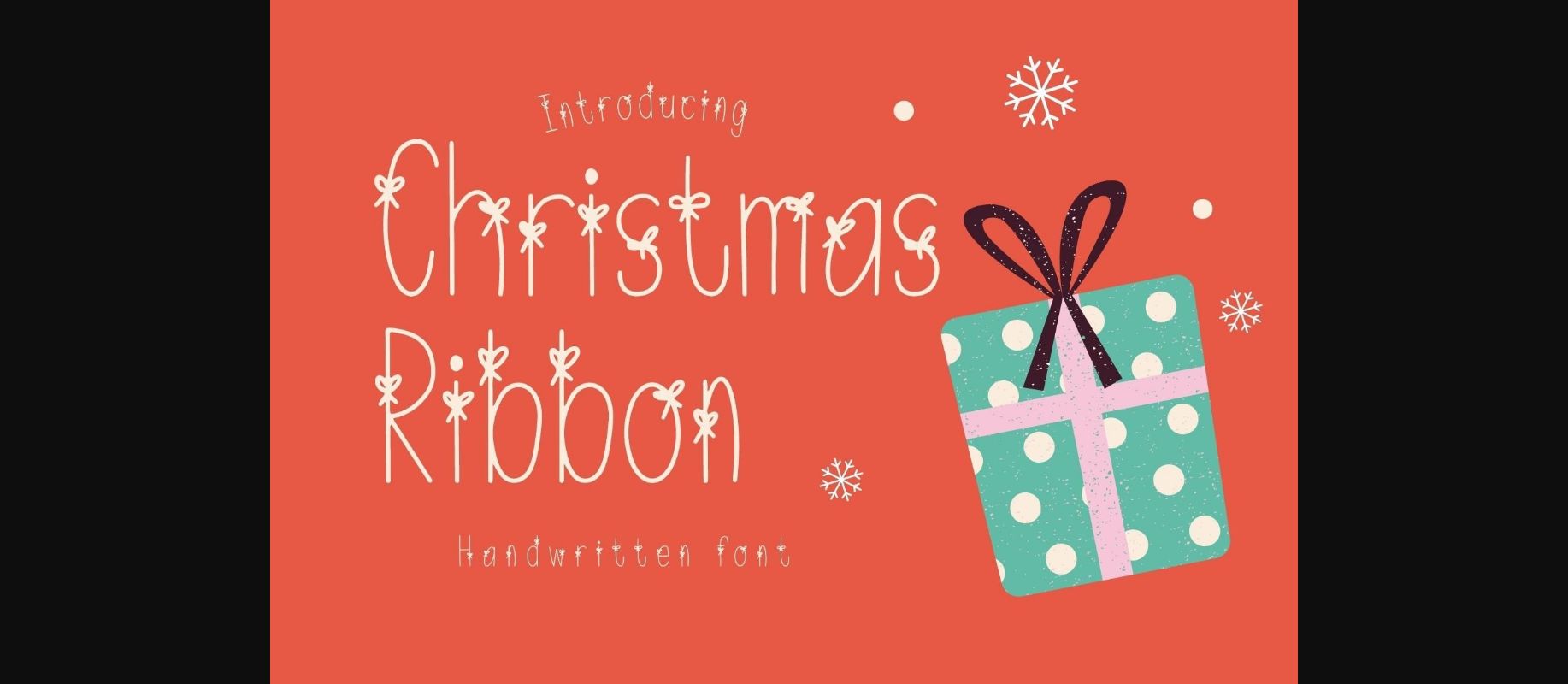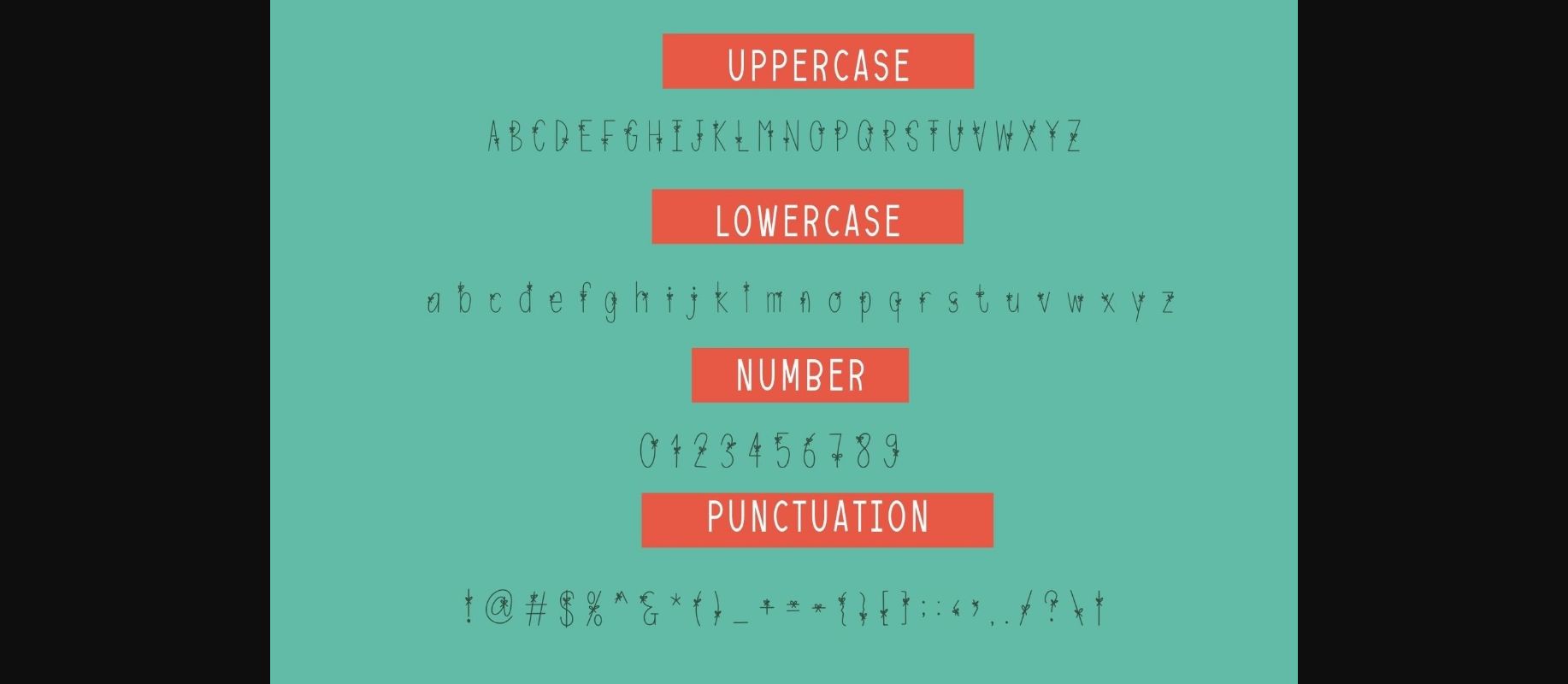
About Christmas Ribbon Font
Christmas Ribbon is a fun decorative font. It embodies playfulness and authenticity and is the perfect choice for all your favorite projects, or even for blog posts, logos, branding, ads, invitations, greeting cards, planners, photo albums, decorations, and much more. Add it to any of your designs, and enjoy the results!